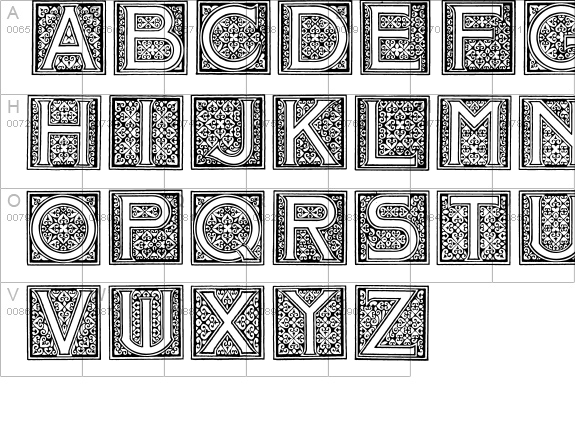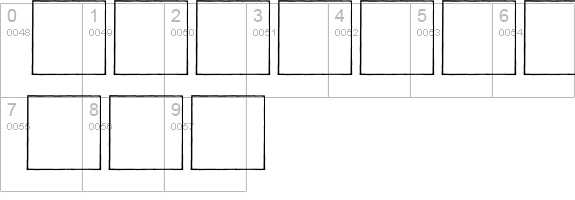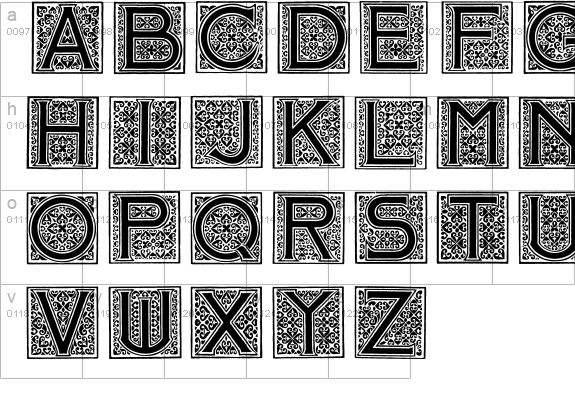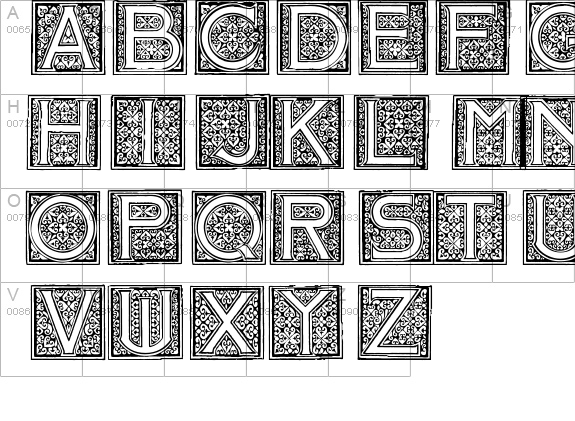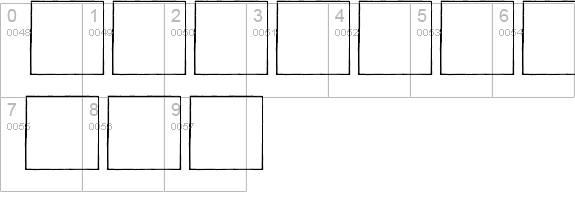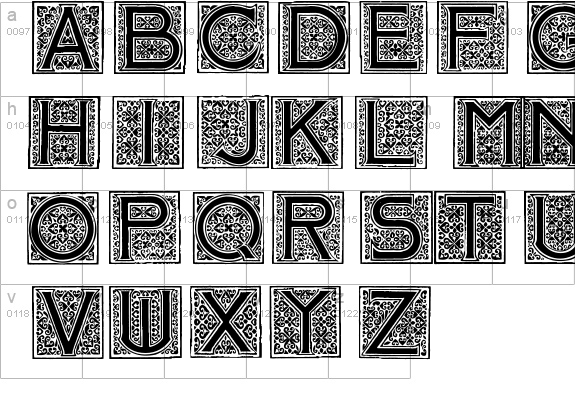
Mosaic_Initials font is a stunning display typeface that exudes elegance and sophistication. With its intricate mosaic-like design, this font is perfect for adding a touch of artistic flair to your projects. The unique combination of shapes and patterns creates a visually striking effect that will captivate your audience. What sets Mosaic_Initials font apart is not only its striking aesthetic appeal but also its versatility. Whether you're designing a logo, poster, or invitation, this font will make your text stand out and leave a lasting impression. The best part is that Mosaic_Initials font is completely free to download at FontsMarket.com. Now you can elevate your designs without breaking the bank. Don't miss out on this incredible opportunity to enhance your projects with this beautiful and unique font. Download Mosaic_Initials font today and unleash your creativity!